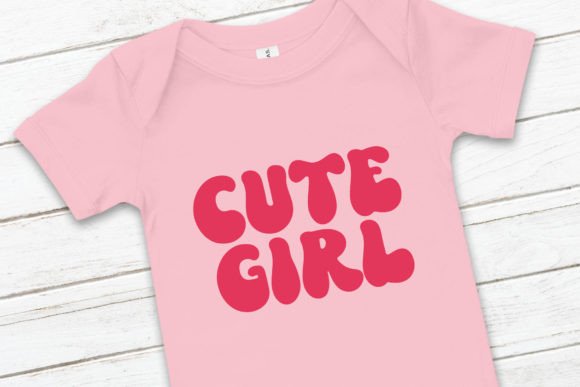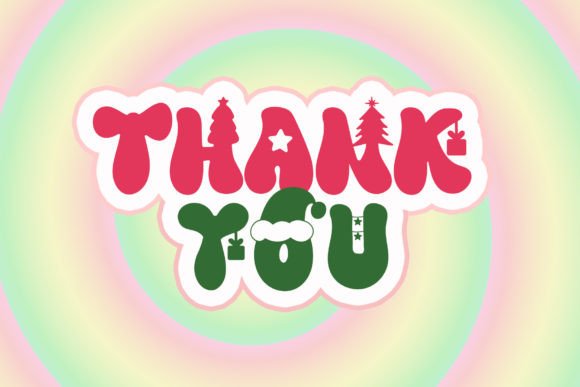
Retro Christa Font
Retro Christa is a cute, retro-style Christmas-themed display font. Add it to your festive, holiday projects and you will be amazed by the outcome generated!